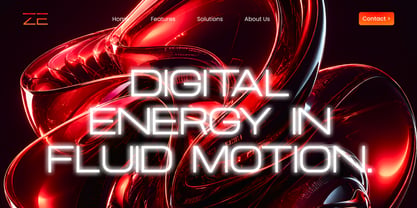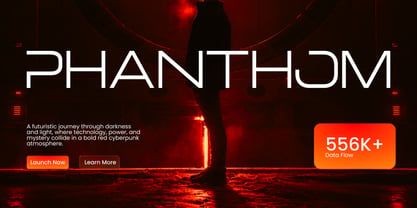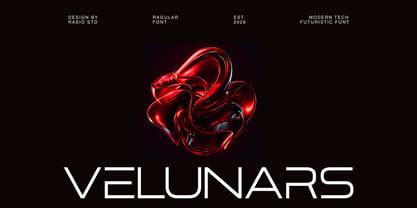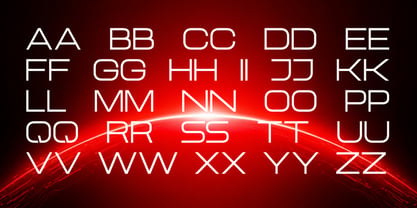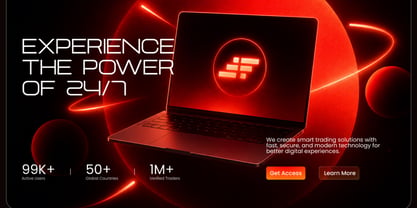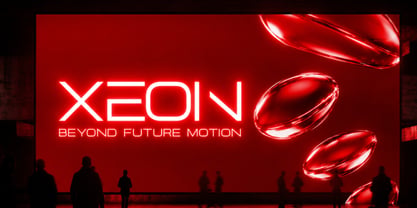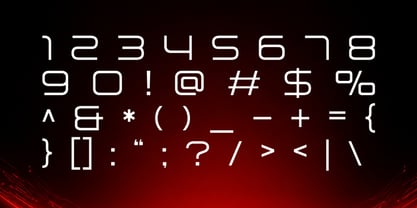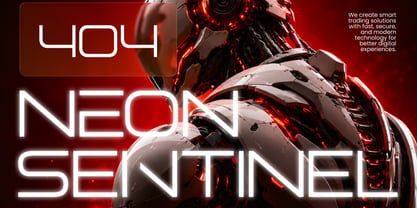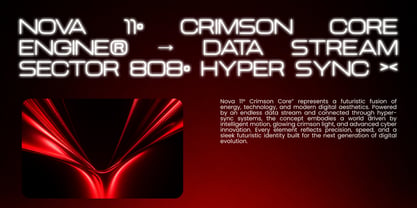
Velunars
by Rasio Studio
The Velunars Font Family was designed by Fajar Indra and published by Rasio Studio. Velunars contains 1 styles. More about this family
Velunars is a modern futuristic display font with sleek geometric construction, thin line proportions, and clean cyber-inspired curves. The typeface delivers a high-tech visual identity with minimalist sci-fi aesthetics, making it stand out in futuristic branding, gaming visuals, digital interfaces, and technology inspired layouts. This font package includes uppercase and lowercase characters, numerals, punctuation, and stylistic alternates for flexible design exploration.
Relevance & Use Cases is highly relevant for futuristic and technology-focused design projects that require a sleek, modern, and cyber-inspired visual tone. The font works perfectly for gaming branding, esports graphics, tech startup identities, AI presentations, sci-fi movie titles, digital product interfaces, futuristic posters, social media campaigns, website headers, and innovative editorial layouts.